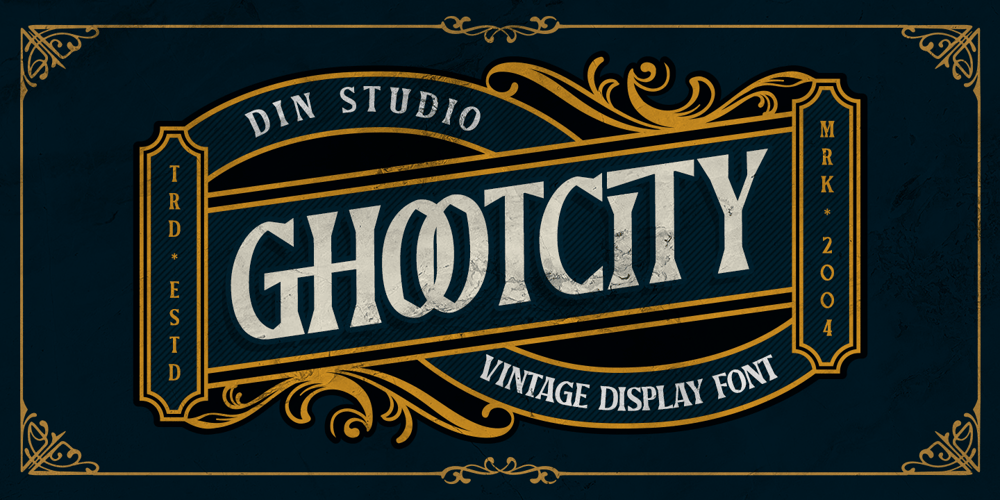
Ghootcity
Ghootcity font
Ghootcity Font Family was designed by Donis Miftahudin and published by Din Studio. Ghootcity contains 1 styles and family package options. Introducing Ghootcity – a bold, vintage-themed display font that exudes strength and character. Crafted in uppercases with consistent letter proportions. Ghootcity also shows a noticeable contrast that adds depth and visual interest. Its sharp-cornered outline enhances the font’s striking appearance, while the vintage style brings a nostalgic touch to your designs. As an extra, this font gives ornaments. In addition, enjoy the features here.Features: Alternates Ligatures Multilingual Supports PUA Encoded Numerals and Punctuations Ghootcity fits in logos, posters, flyers, branding materials, print media, editorial layouts, and many more designs. Find out more ways to use this font by taking a look at the font preview.Thanks for purchasing our fonts. Hopefully, you have a great time using our font. Feel free to contact us anytime for further information or when you have trouble with the font. Thanks a lot and happy designing.